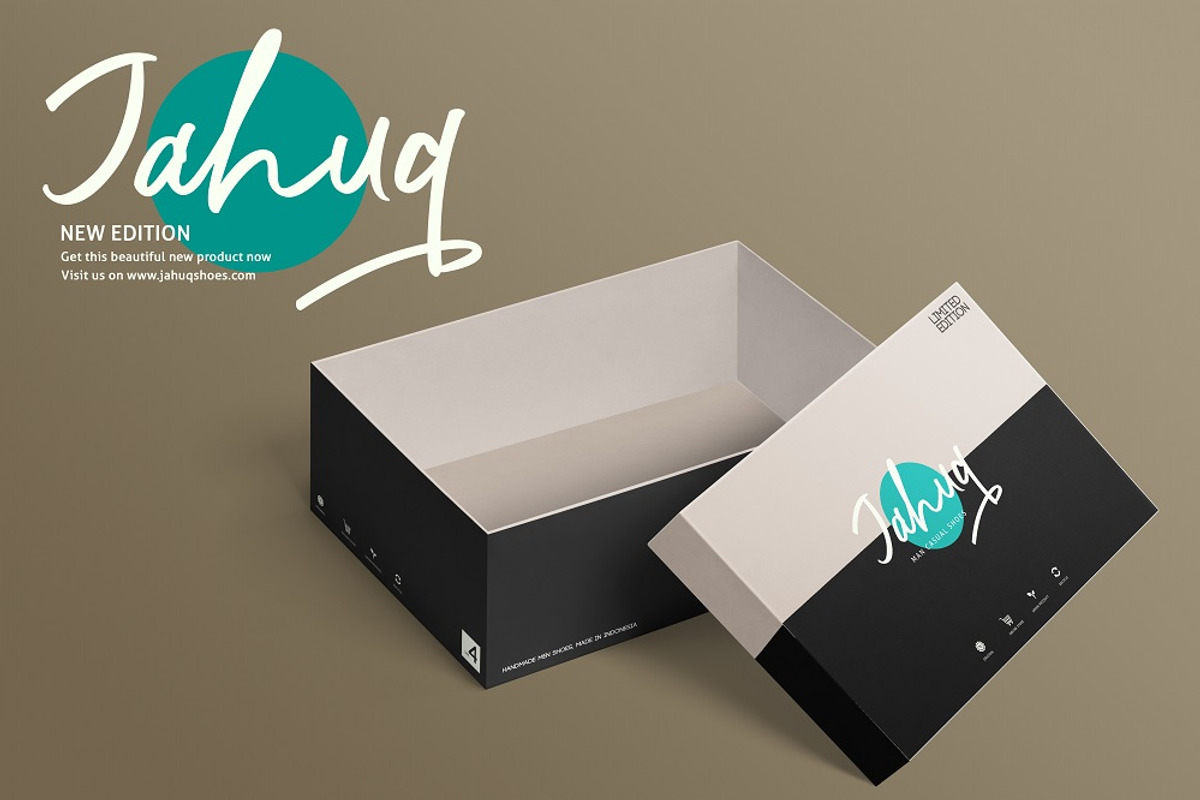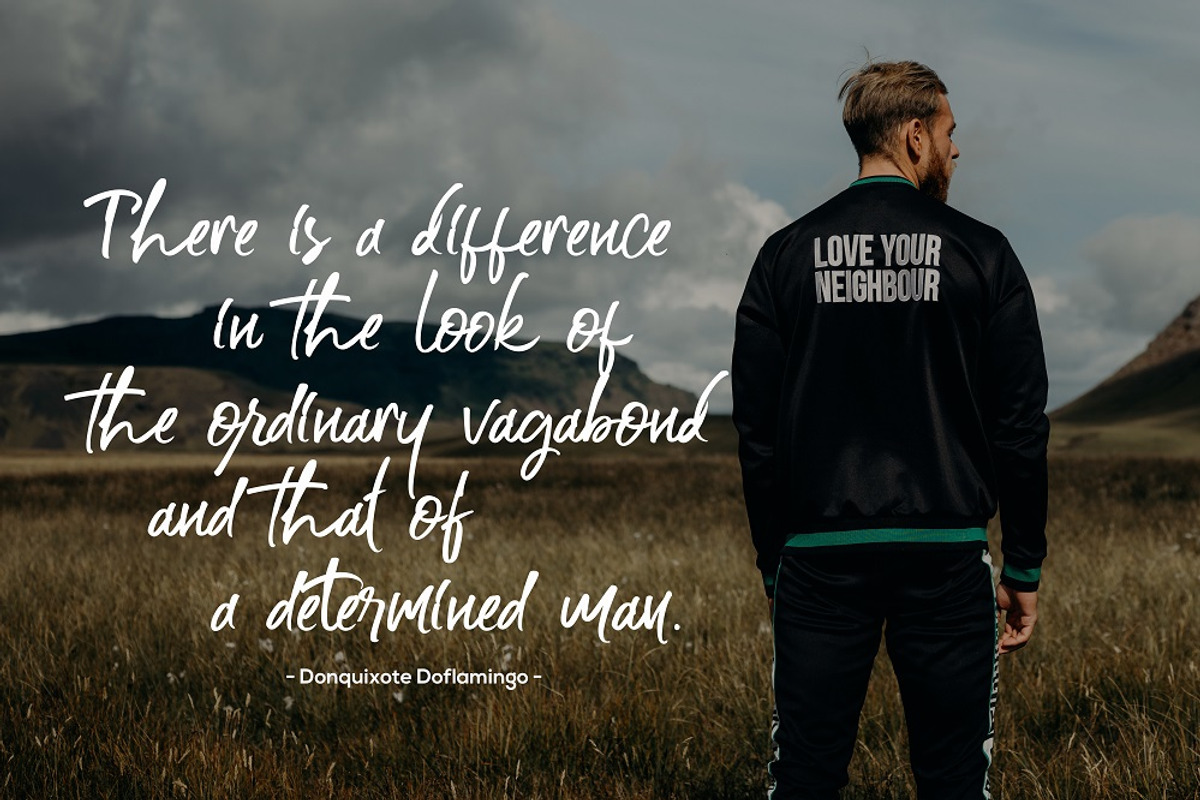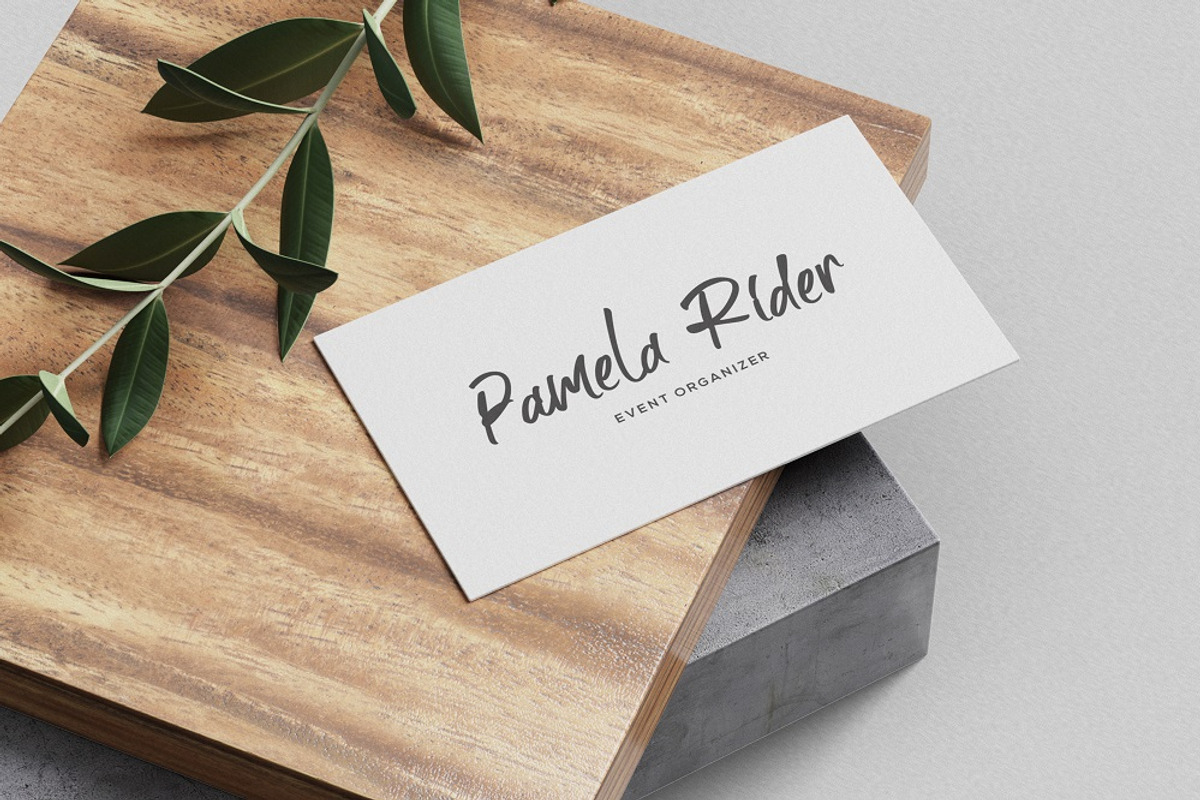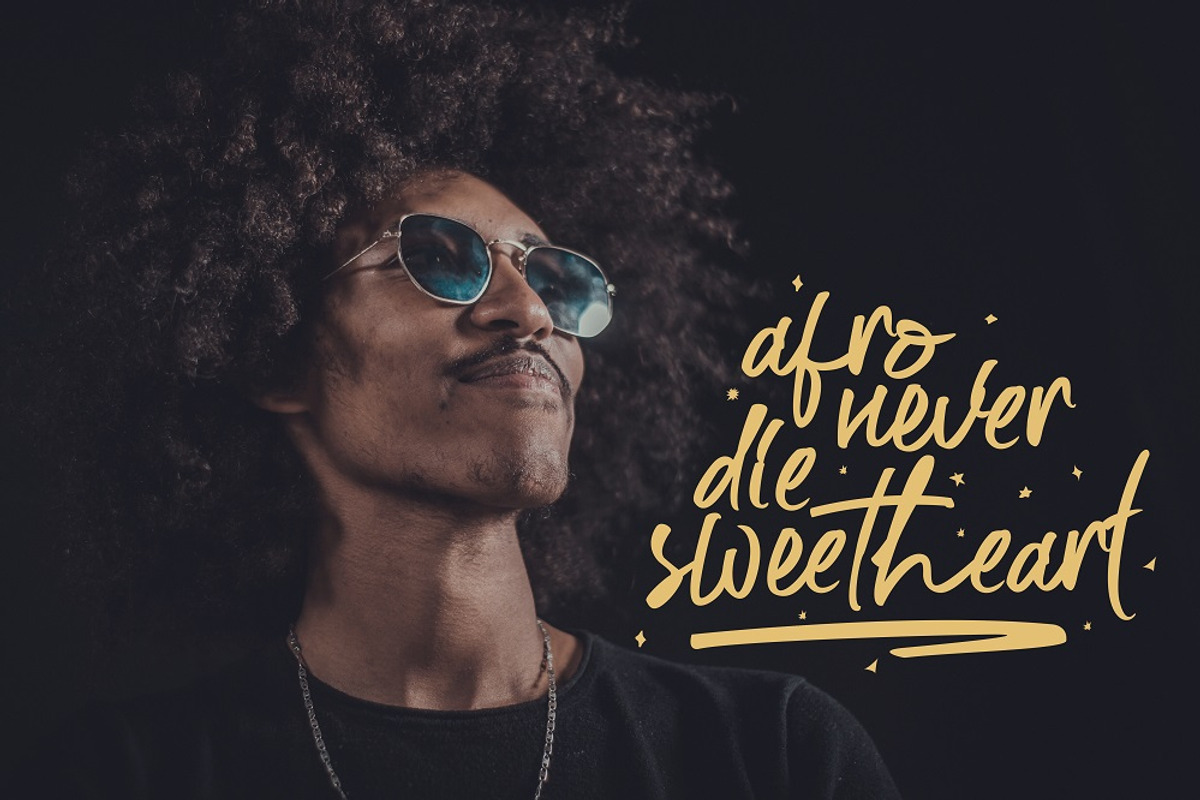
Doflamingo
This is my recently font 'Doflamingo' made from my originally handwritting for any typhography dry handbrushed, designed to combine perfectly and allow you to create stunning hand-lettering quickly and easily. Ideal for logos, handwritten quotes, product packaging, header, poster, merchandise, social media & greeting cards.
Doflamingo comes with upper and lowercase characters, large set of punctuation glyphs, numerals, and supports international languages. Stylistic alternates for several key lower case characters are also available.